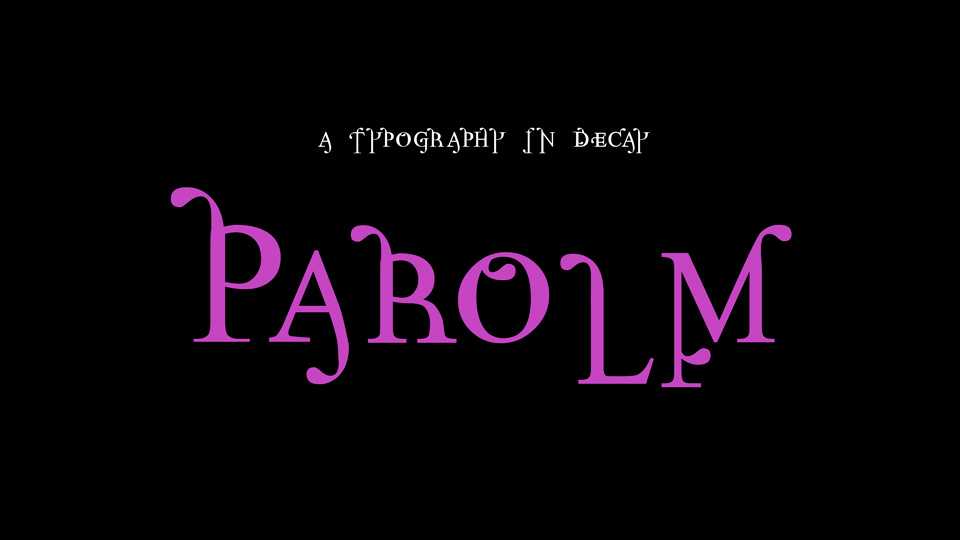
Download Parolm font, a creative display serif typeface with decorative letter shapes inspired by a synthesis of Times New Roman and Democratica. Parolm is great for posters and headlines.